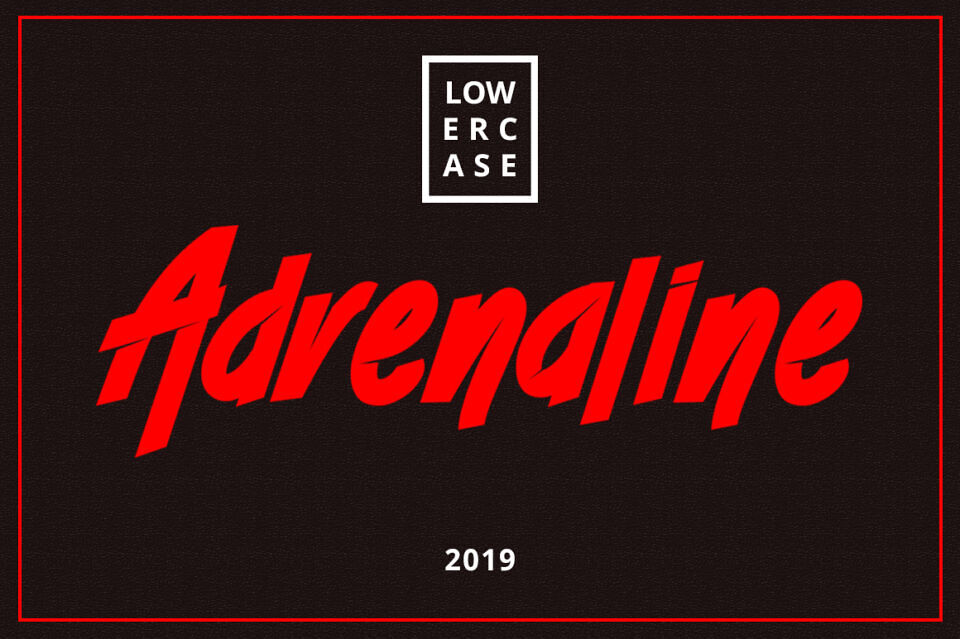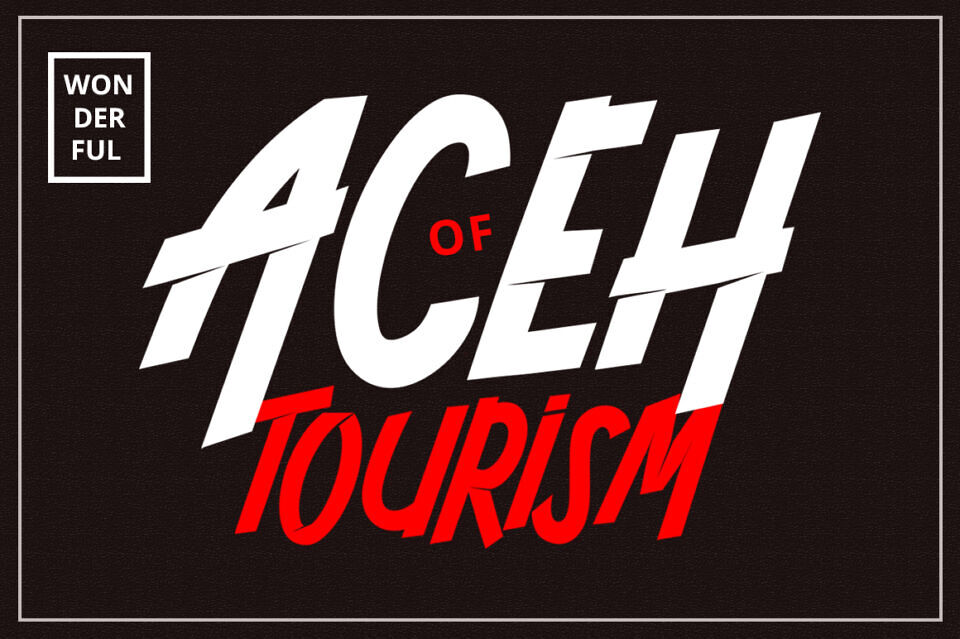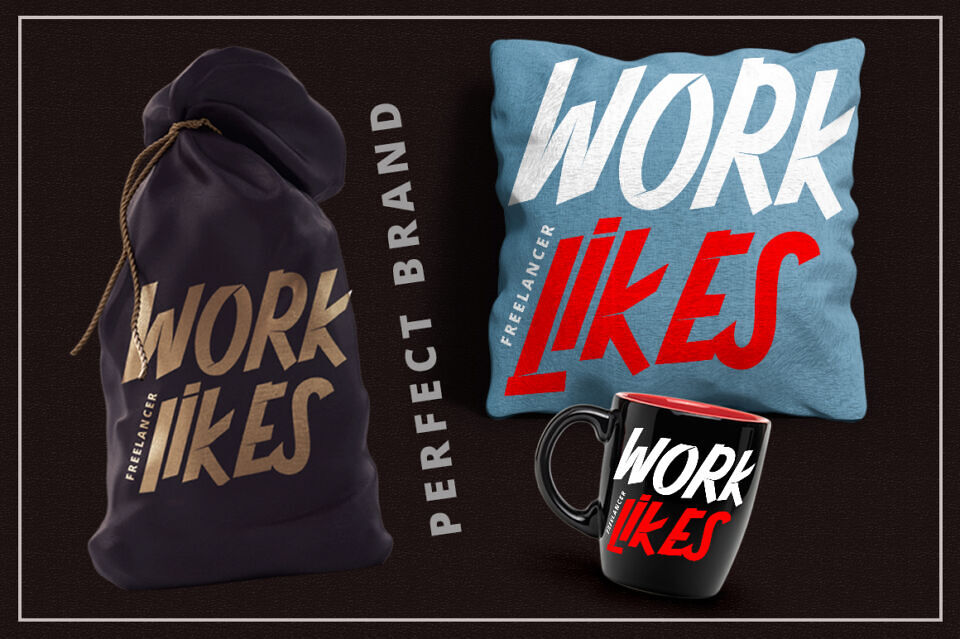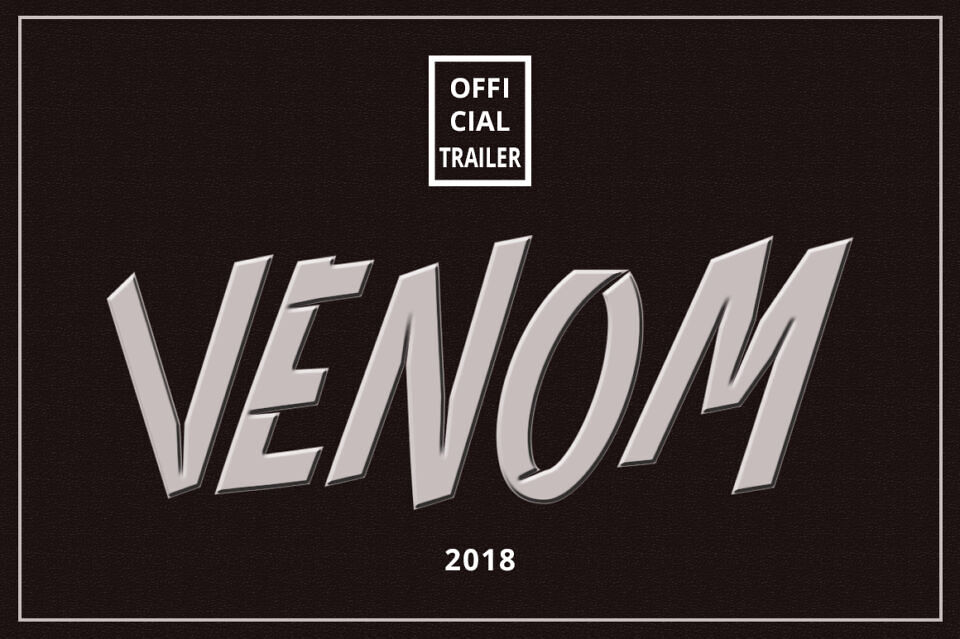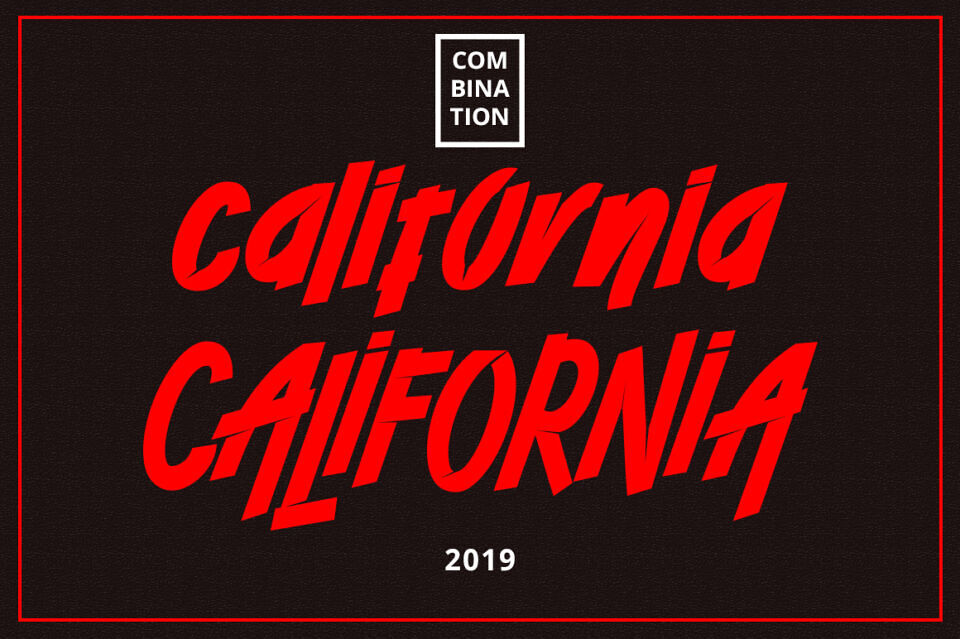
Give your designs an authentic brush handcrafted feel with Adrenaline. It’s perfectly suited for signatures, stationery, logos, typography quotes, magazine or book covers, website headers, clothing, branding, packaging designs, and much more!